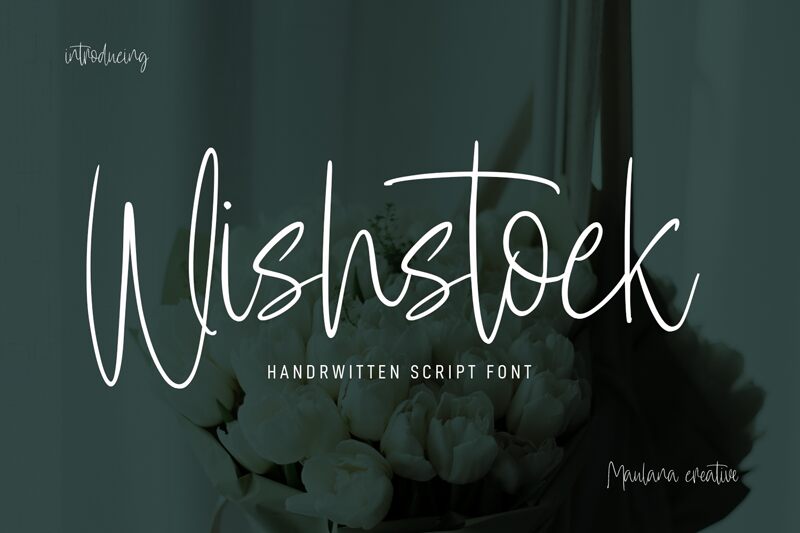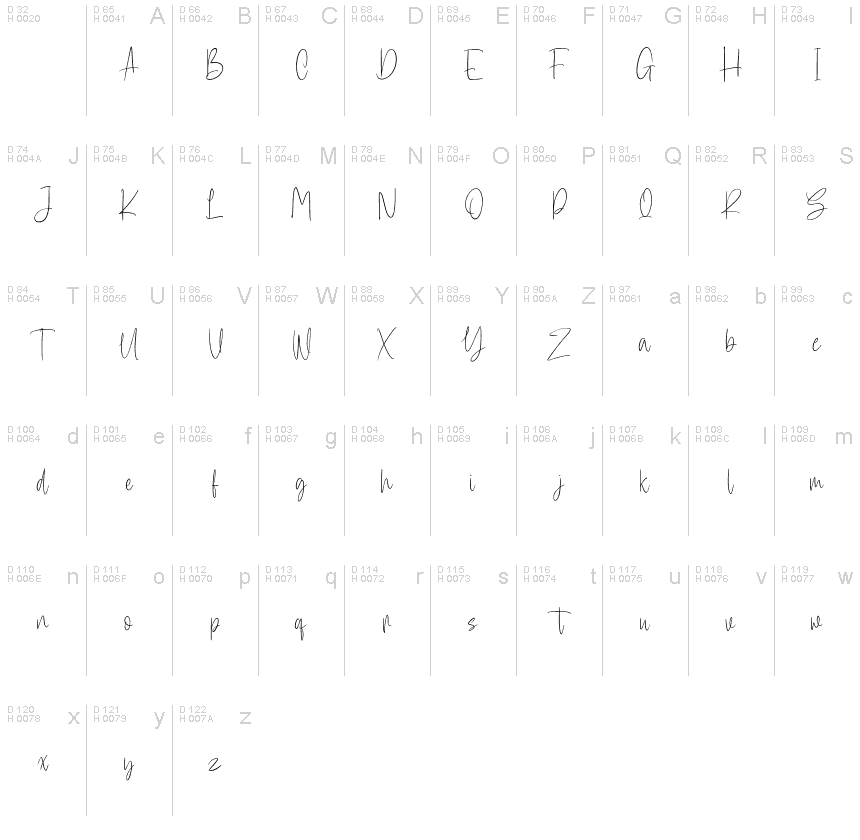
Wishstock is the perfect extra-light handwritten font for all your creative projects. Designed by Maulana Creative, this semi-condensed typeface exudes a playful yet sophisticated vibe that suits a wide range of design applications. From wedding invitations to product packaging, Wishstock adds an elegant touch to any project. Use it for branding, logos, headlines, and more – the possibilities are endless with this versatile font. Its unique style will make your designs stand out from the crowd while creating a memorable impression on your audience. Upgrade your designs with Wishstock today!